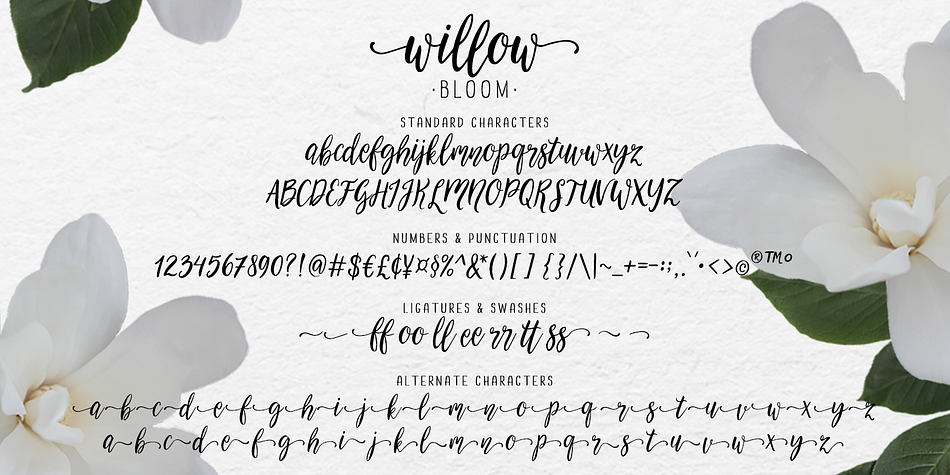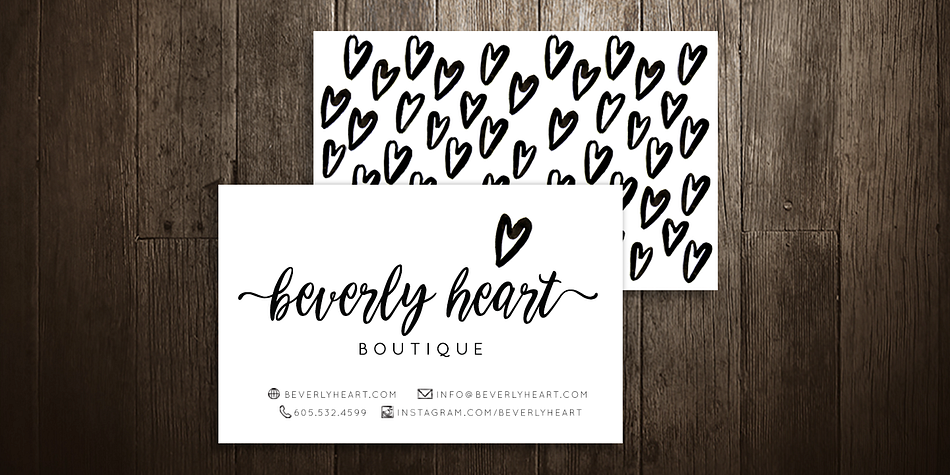
Willow Bloom is a modern calligraphy and script font published by Angèle Kamp.
Willow Bloom is a beautiful, modern calligraphy font with a dancing baseline. This hand-lettered script will look gorgeous on all your designs, wedding invites, branding materials, logo’s, business cards, and quotes.